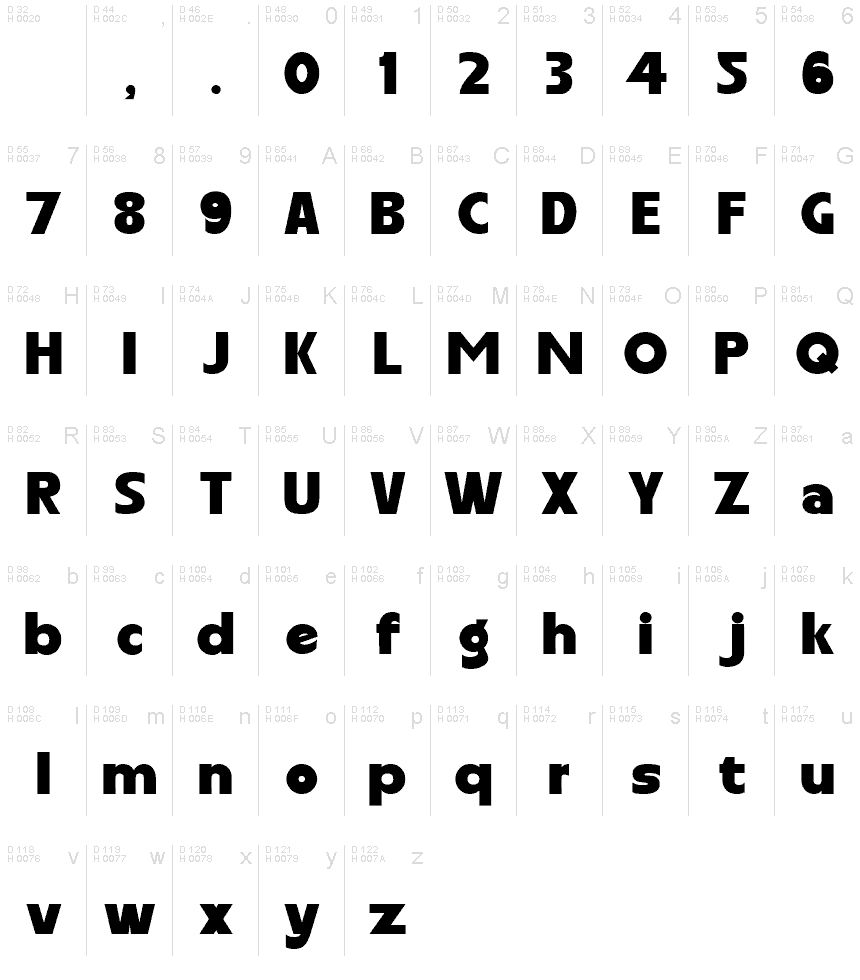
Carltine Black
Carltine Black font by Muksal Creative is a bold, modern sans serif typeface that effortlessly combines retro inspiration with geometric, minimalist shapes. The font has a distinctly rounded and bold presence, resulting in an eye-catching look.